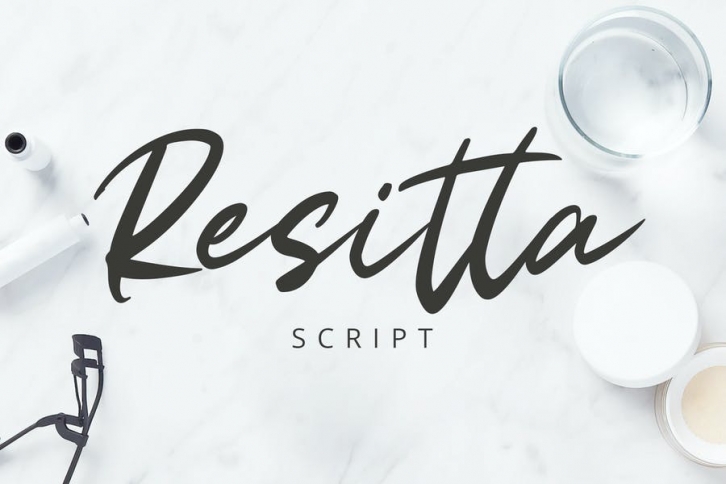
Introducing Resitta Script, with the stroke of hand quick. You can use and enjoy Resitta, for your project needs.
And this font perfect for signature, logo, handwritten quotes, product packaging, fashion magazine, photography, merchandise, branding projects, poster, social media post, book cover, flyer, and advertising. You can create easily and make it as if you wrote it yourself.
All fonts containing upper & lowercase characters, numerals, ligatures and a large range of punctuation.